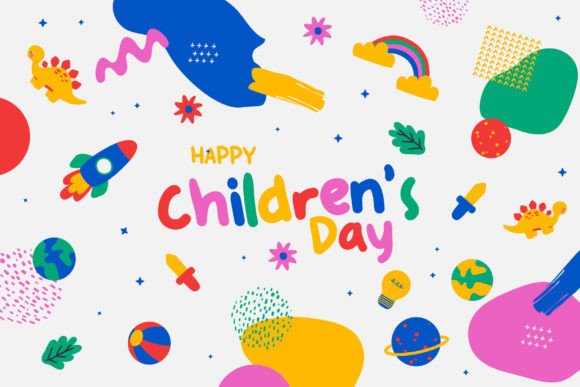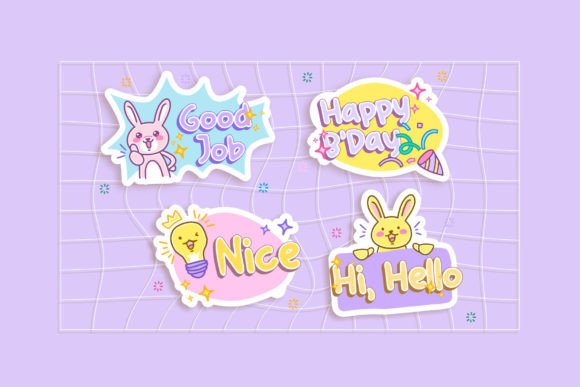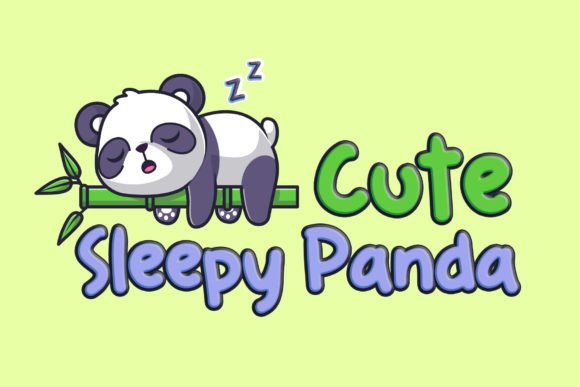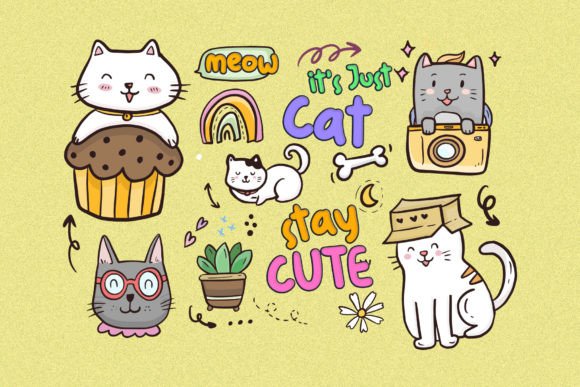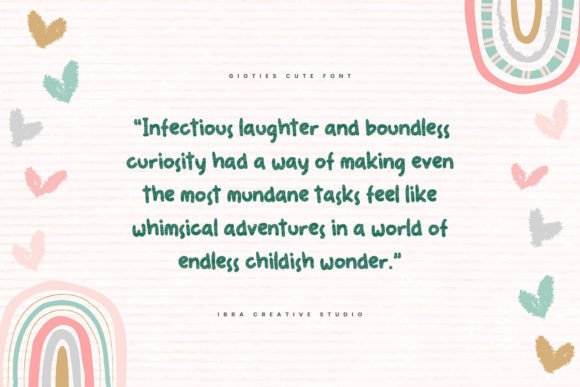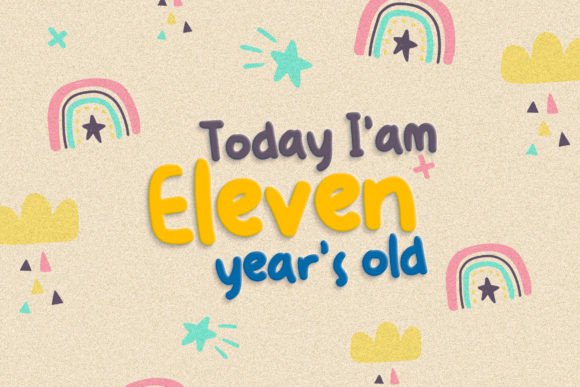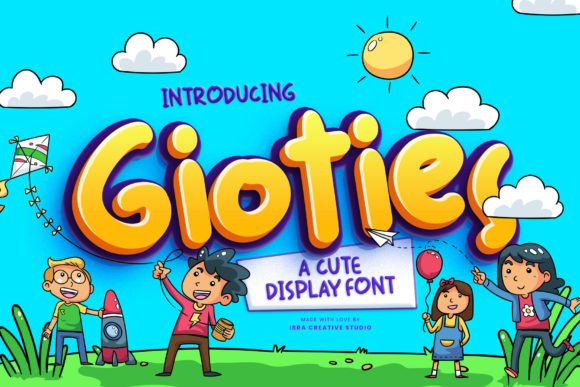
Gioties Font: The Ultimate Choice for Designs that Radiate Cuteness and Playfulness
In the world of typography, few fonts manage to capture the essence of innocence and joy as effortlessly as Gioties. This adorable display font is a treasure trove of whimsy and charm, making it the perfect addition to any design project that requires a touch of sweetness and lightheartedness. With its rounded edges and friendly curves, Gioties exudes approachability, ensuring that any project adorned with this font becomes an instant delight.
The Characteristics of Gioties Font
Gioties is more than just a font – it’s an experience. Its cute and whimsical letterforms are carefully crafted to evoke a sense of wonder and playfulness. Each letter is uniquely designed with rounded edges and curves that give it a friendly and approachable feel. This makes Gioties the perfect choice for designs that require a touch of innocence and joy, such as children’s books, playful merchandise, and cheerful branding.
The Versatility of Gioties Font
One of the standout features of Gioties is its versatility. This font can be used in a wide range of design projects, from children’s books and playful merchandise to cheerful branding and more. Whether you’re a designer looking to add a touch of whimsy to your project or a crafter seeking to create something truly unique, Gioties is the perfect choice. Its unique character variations and vibrant energy create a captivating visual experience that is sure to leave a lasting impression.
Using Gioties Font in Design Projects
So, how can you use Gioties in your design projects? The possibilities are endless! Here are a few ideas to get you started:
- Children’s Books: Gioties is the perfect choice for children’s books, adding a touch of whimsy and wonder to your story. Whether you’re creating a picture book, early reader, or chapter book, Gioties is sure to delight your young readers.
- Playful Merchandise: From t-shirts and mugs to stickers and toys, Gioties is the perfect font for creating playful merchandise that is sure to bring a smile to anyone’s face.
- Cheerful Branding: If you’re looking to create a brand that is friendly, approachable, and fun, Gioties is the perfect choice. Use it for your logo, packaging, or marketing materials to add a touch of whimsy and personality to your brand.
The Benefits of Using Gioties Font
So, why should you choose Gioties for your design project? Here are just a few benefits of using this adorable display font:
- Unique and Eye-Catching: Gioties is a truly unique font that is sure to grab attention. Its whimsical letterforms and rounded edges make it a standout in any design project.
- Versatile: As mentioned earlier, Gioties can be used in a wide range of design projects, from children’s books to cheerful branding.
- Easy to Read: Despite its playful nature, Gioties is surprisingly easy to read, making it perfect for designs that require a touch of whimsy without sacrificing legibility.
Tips for Using Gioties Font Effectively
To get the most out of Gioties, here are a few tips to keep in mind:
- Use it Sparingly: While Gioties is a delightful font, it can be overwhelming if used excessively. Use it sparingly to add a touch of whimsy to your design project.
- Pair it with Other Fonts: Gioties pairs well with a wide range of fonts, from serif and sans-serif fonts to script fonts. Experiment with different pairings to find the perfect combination for your design project.
- Experiment with Colors: Gioties looks great in a wide range of colors, from bright and bold to pastel and soft. Experiment with different colors to find the perfect combination for your design project.
| Author | ibracreative |
In conclusion, Gioties is a truly unique and adorable display font that is sure to bring a touch of whimsy and charm to any design project. With its cute and whimsical letterforms, rounded edges, and friendly curves, Gioties encapsulates the essence of innocence and joy. Whether you’re a designer or crafter, Gioties is the perfect choice for projects that require a touch of sweetness and lightheartedness. So why not give Gioties a try and see how it can add a delightful flair to your design project?